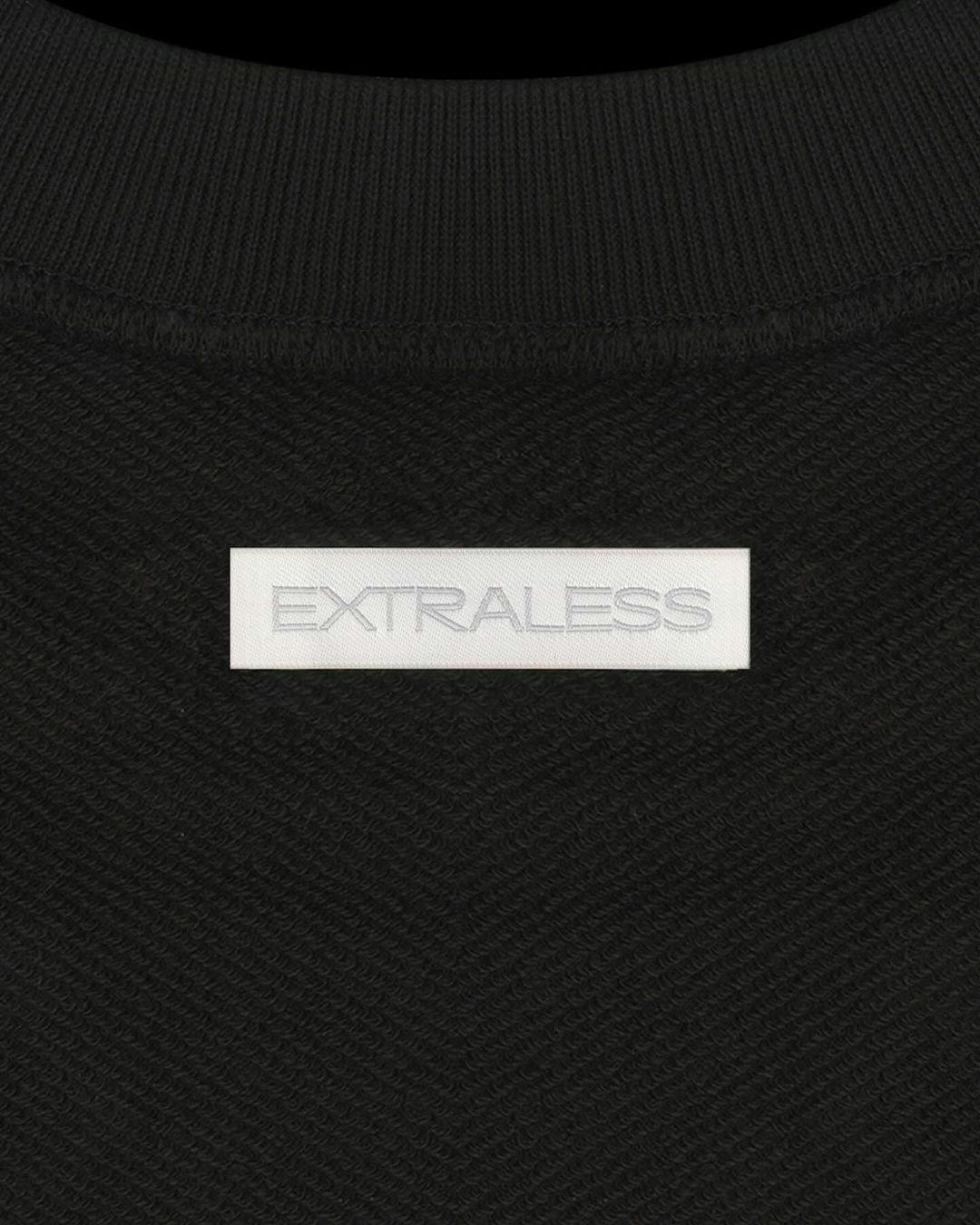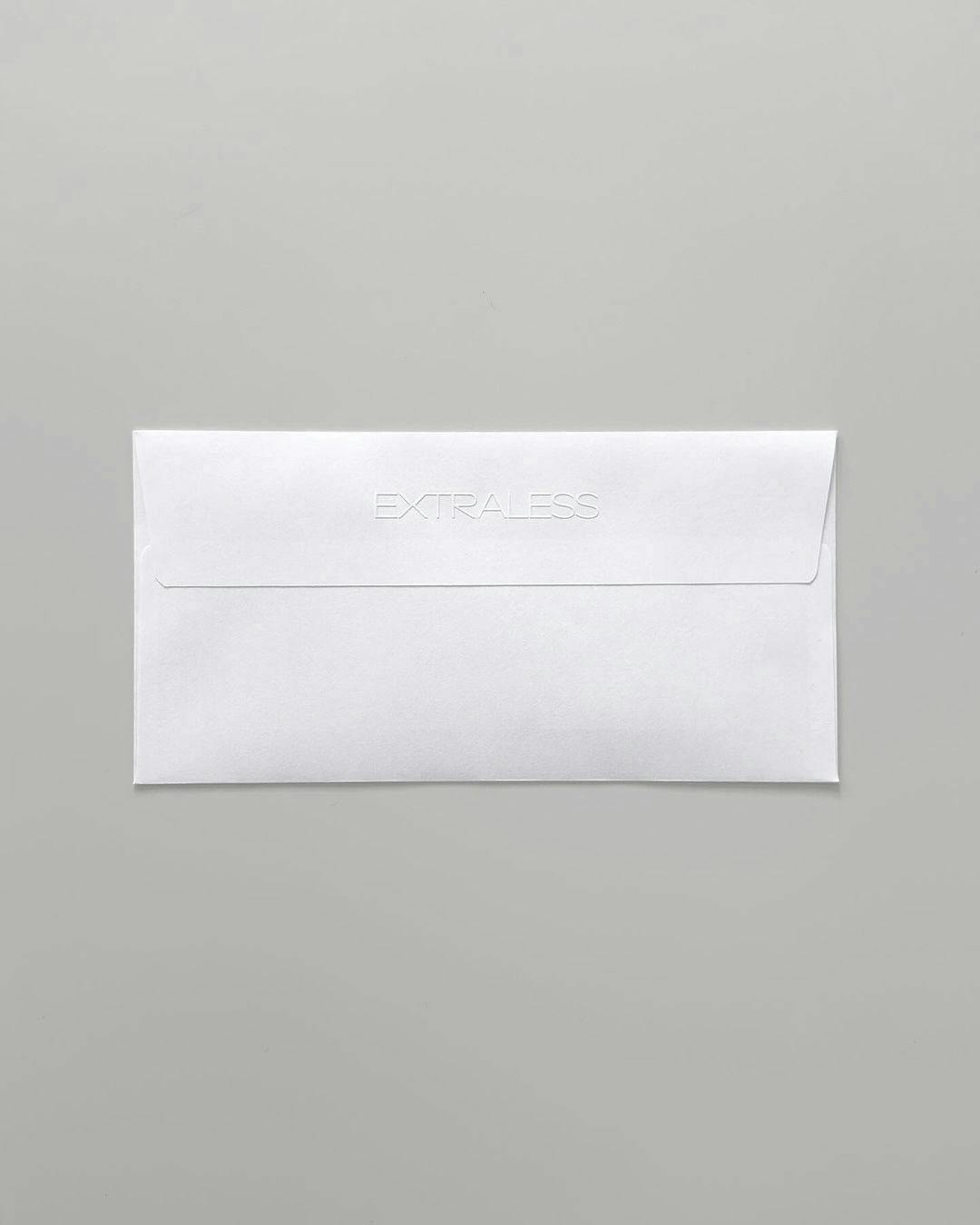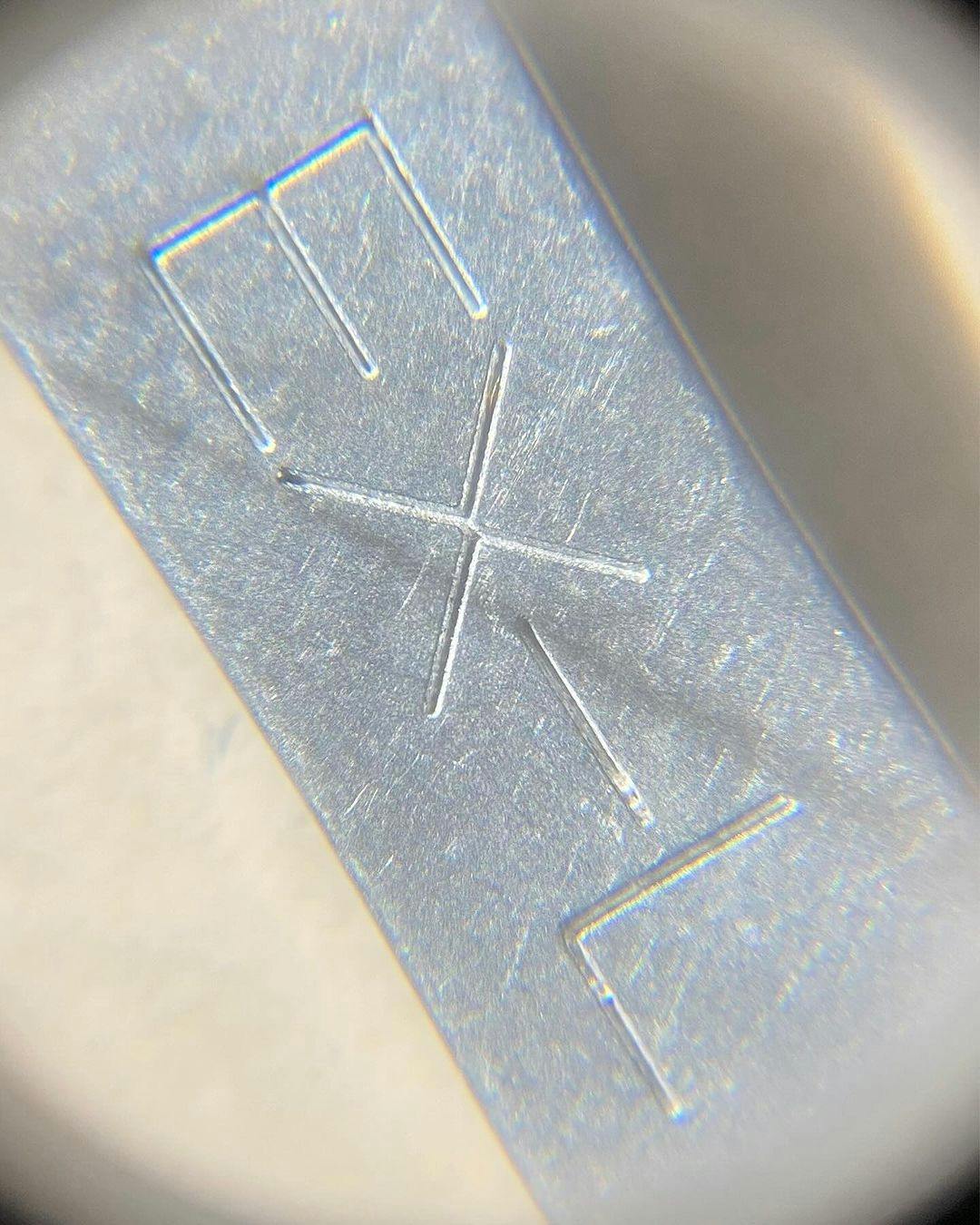
EXTRALESS is a contemporary clothing brand with a philosophy of eliminating excess, focusing on quality, fundamentals, and shared humanity. Based in Japan, EXTRALESS embodies the ethos of “less is more” across its products, communications, and cultural contributions. BRITISH STANDARD TYPE, in collaboration with design studio OK-RM designed a custom typeface for the brand’s visual identity.
The typeface is conceived as a flexible tool, conceptually balancing three core principles: standardisation, ensuring clarity and consistency; modernist pragmatism, emphasising functional elegance; and technological innovation, utilising variable font technology to adapt seamlessly to different formats and materials.
Visually, the typeface merges geometric precision with contrasting humanist forms, combining low contrast, clean shapes, and micro detailing to establish a unique typographic vernacular. This synthesis reflects EXTRALESS’s ascetic yet utilitarian ethos, creating a cohesive and progressive typographic language that amplifies the brand’s mission to redefine corporate values through cultural contributions.
Typeface: EXTRALESS
Additional: Logotype & Monogram Engineering
3 Styles: Regular Headline, Light Headline, Skeleton Headline and Variable
Coverage: Latin-A Encoded
Classification: Geometric Sans Serif